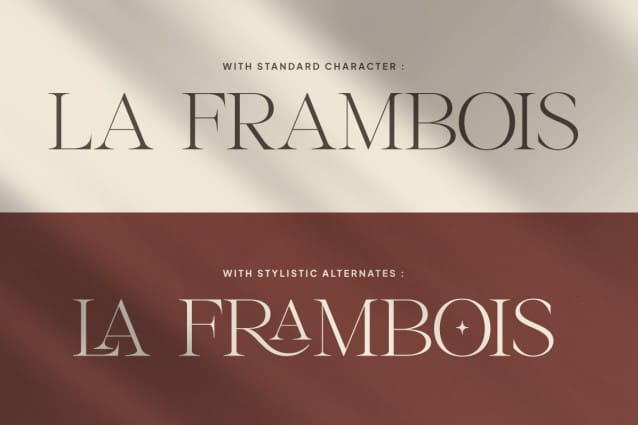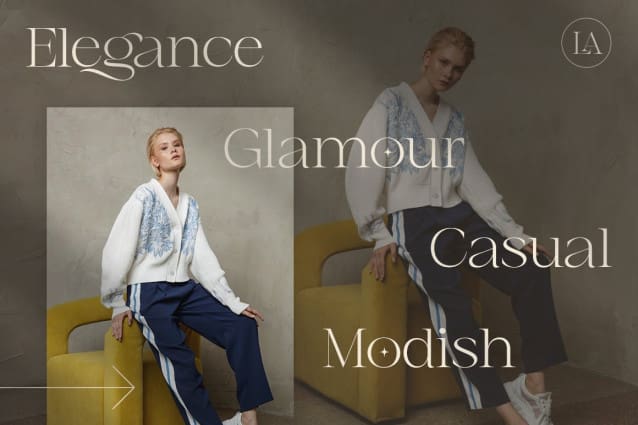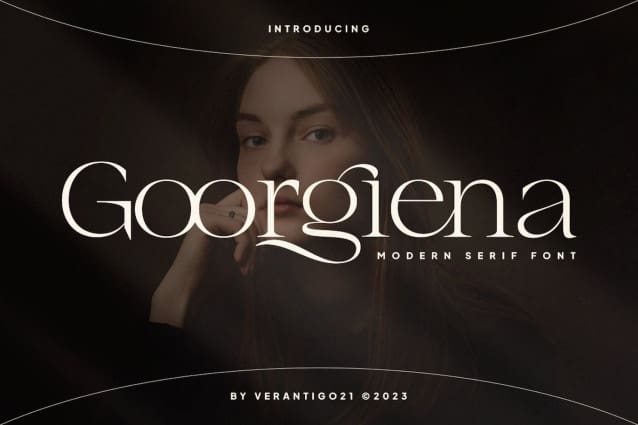
Goorgiena Font
Goorgiena Font is inspired by famous logos. It’s simple, yet classy, and was made with precision and measure. It’s perfect for logos & branding, photography, invitations, watermarks, advertisements, product designs, stationery, wedding designs, labels, product packaging, and much more!